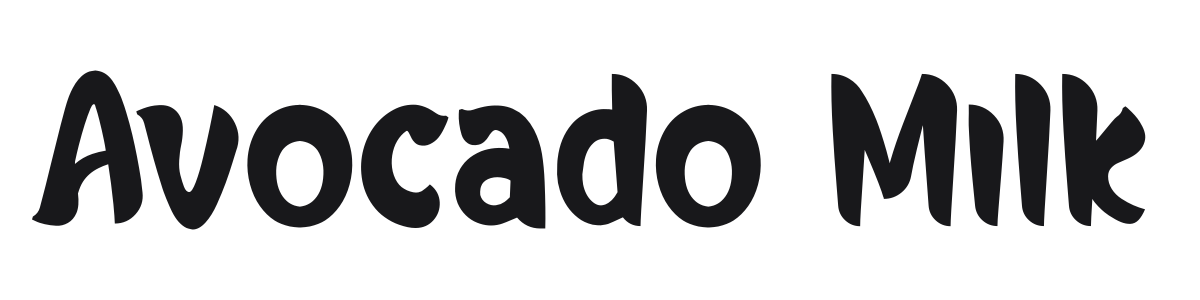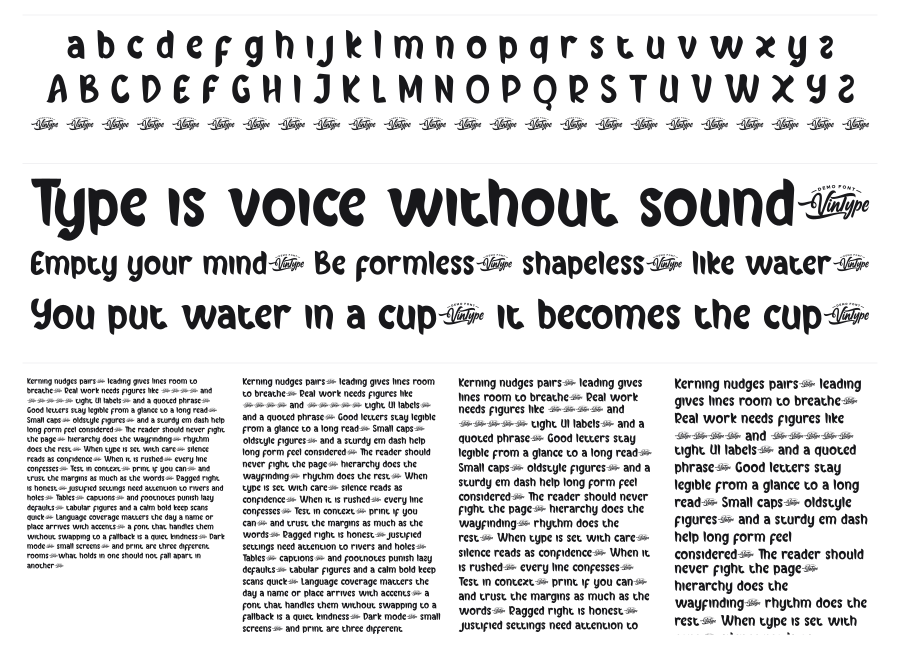
Avocado Milk
Avocado Milk is a bold, rounded display font with a distinctly groovy 1970s personality. Its heavy strokes, exaggerated curves, and slightly irregular rhythm give it a hand-crafted, organic energy that stands out at large sizes. It fits naturally in food branding, lifestyle projects, and anywhere a playful retro voice is the point.